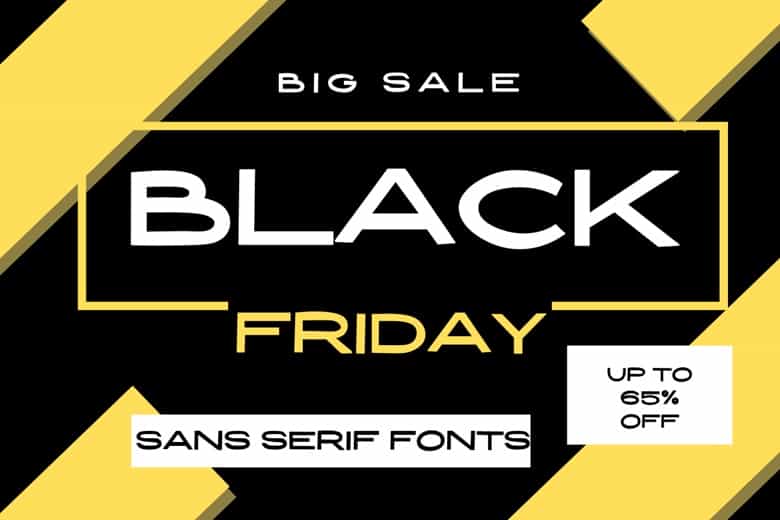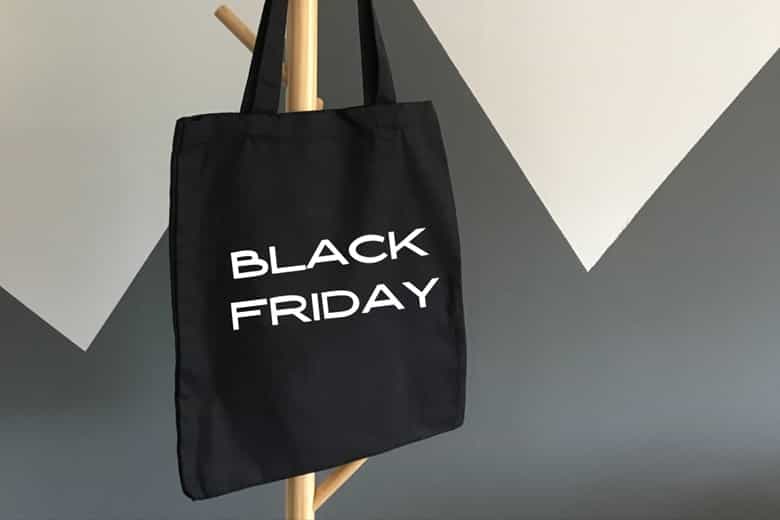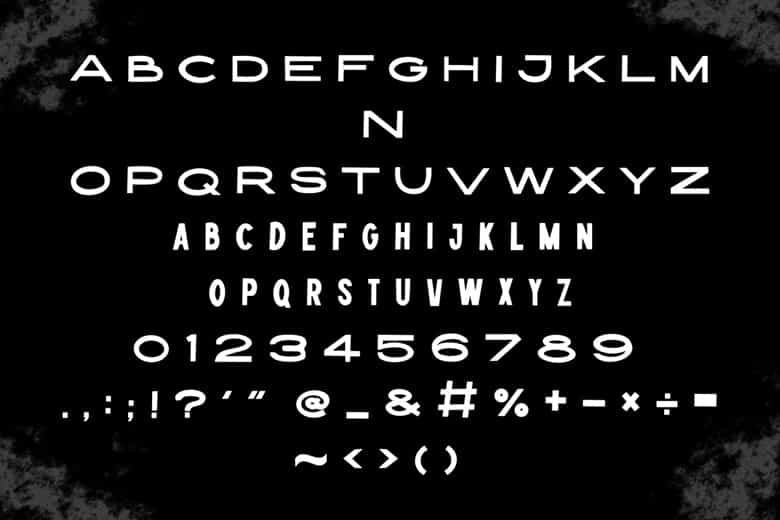
Black Friday is one of the most dominant sans serif fonts. Whether it is an article, website, or any document, this font will be the perfect addition to your fonts collection as it is very powerful and suitable for any work.